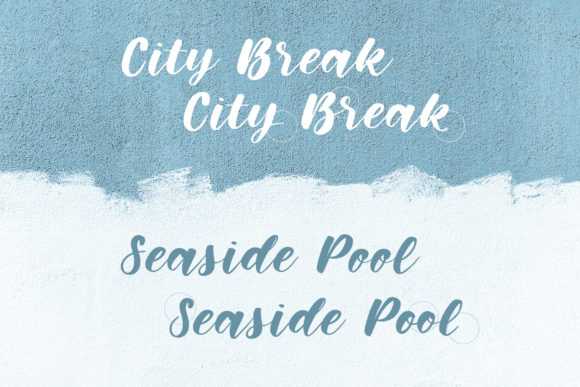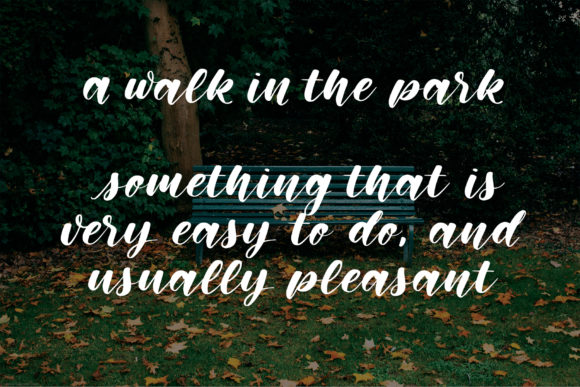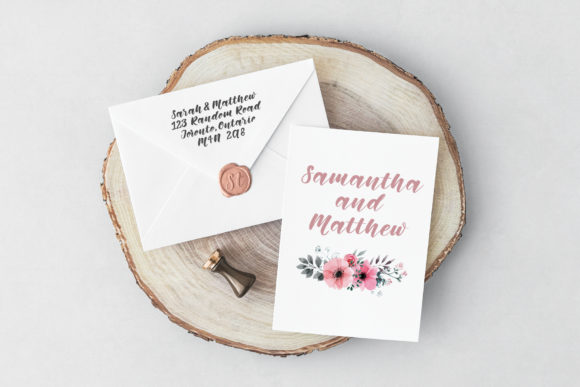
Introduction to Memphis Park Font
Memphis Park is a bold handwritten font, carefully handcrafted to become a true favorite.
Its casual charm makes it appear wonderfully down-to-earth, readable and, ultimately, incredibly versatile This font will look outstanding in any context, whether it’s being used on busy backgrounds or as a standalone headline.